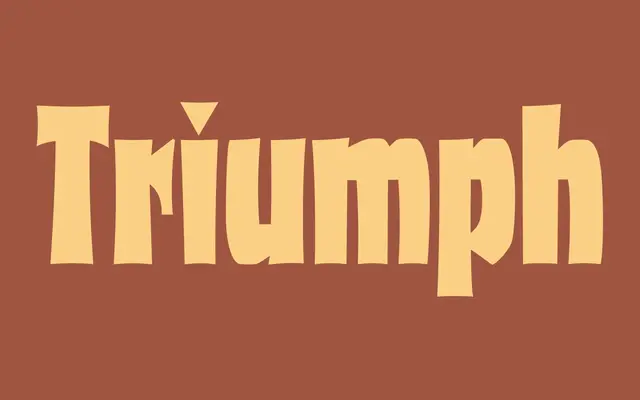
FDI Triumph
FDI Type Foundry · Albert Auspurg, Ralf Herrmann · 2023
A careful digitisation of Albert Auspurg's 1929 Triumph wood type, revived from the original Ludwig Wagner foundry specimen and extended to cover Western codepages.
Originally released in 1929 by the Leipzig foundry Ludwig Wagner, Triumph was a forgotten wood type design brought back by Ralf Herrmann working from the original source material. The single-style revival covers Win 1252 and Mac Roman codepages, making it broadly usable for Western language display work. Best suited to logos, headlines and editorial contexts where its historic character can carry weight.
Classified as display by the foundry; a digitisation of a 1929 wood type design with pronounced decorative character suited to headlines and logos rather than text setting.